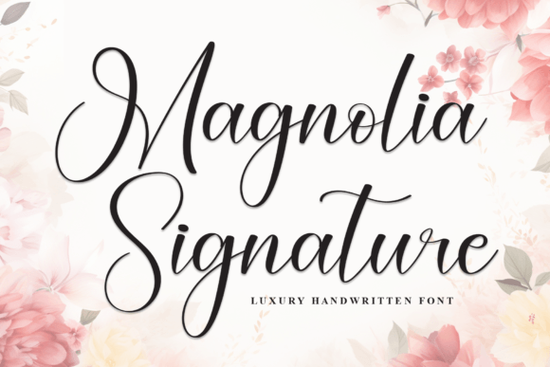
When you need typography that feels personal and refined, a well-crafted script typeface makes all the difference. The Magnolia Signature Font is a flowing handwritten typeface designed to bring grace and expressiveness to your projects. It captures the essence of traditional calligraphy, making it a reliable choice for wedding invitations, boutique branding, and artisan product packaging. Instead of relying on stiff, computer-generated letters, this typeface gives your layouts a genuine, human touch.
What makes this script typeface stand out for small businesses?
Small business owners and print-on-demand sellers often struggle to find typography that looks professional without feeling corporate. If you are browsing for elegant script typography, you will notice how the connecting strokes in this design mimic real penmanship. The characters are meticulously crafted to ensure that every letter flows naturally into the next. This artful elegance helps your brand stand out on crowded marketplaces, whether you are selling custom mugs, designing tote bags, or creating thank-you cards for your Etsy shop.
How do you pair this calligraphy font with other typefaces?
Which projects work best with traditional handwritten typography?
Because of its timeless and sophisticated vibe, this typeface is highly versatile. Here are a few specific ways designers and crafters use it:
- Wedding stationery: Use it for the couple's names on invitations, save-the-dates, and seating charts to add a romantic, personalized touch.
- Print-on-demand apparel: It looks excellent on minimalist t-shirts and canvas tote bags, especially when paired with simple line-art graphics.
- Boutique branding: Apply it to logos, packaging stickers, and tissue paper stamps for small skincare, jewelry, or candle businesses.
- Digital products: Incorporate it into the cover pages of digital planners, social media templates, and printable wall art.
What are the technical rules for formatting script fonts?
Even the most beautifully drawn letters will look broken if they are formatted incorrectly. When working with any connected handwriting typeface, you must follow a few basic typographic rules to maintain the illusion of continuous pen strokes.
First, never break a word across two lines. If a word is too long for your text box, move the entire word to the next line. Breaking a connected script in the middle of a word ruins the flow and looks like a mistake. Second, avoid adjusting the letter spacing. Script fonts are kerned specifically so the connecting strokes meet perfectly. If you increase the tracking, the letters will detach; if you decrease it too much, they will overlap awkwardly. Always leave the tracking at its default setting.
Lastly, pay attention to your background contrast. Delicate, thin downstrokes can easily disappear if placed over a busy photograph or a low-contrast background. If you must place the text over an image, add a subtle drop shadow or a semi-transparent solid block behind the text to ensure it remains legible.
Quick checklist for your next design project
Before you export your final file, run through this quick checklist to ensure your typography looks professional:
- Check that no connected words are accidentally split across multiple lines.
- Verify that the letter spacing is set to default.
- Ensure the font size is large enough for the thin connecting strokes to print clearly.
- Confirm that the text color has enough contrast against the background.
- Proofread the spelling, as script fonts can sometimes make typos harder to spot at a glance.